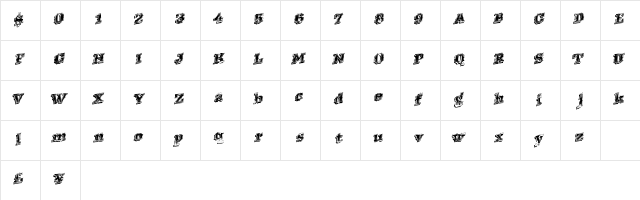
WesternRacing Regular
| Foundry | Xerographer Fonts |
| Designer | Xerographer Fonts Max Infeld |
Design Context for WesternRacing Typeface
WesternRacing taps into classic Western woodtype traditions — bold, characterful, and impossible to ignore.
A natural fit for craft spirits, ranch branding, rodeo events, and Americana-inspired design work.
Font Pairing: Combine WesternRacing with a simple slab or neutral sans — period-accurate companions reinforce the vintage feel without competing for attention.
Pro Tip: Use WesternRacing for short, impactful bursts of text — it shines in poster headlines and product names rather than extended copy.